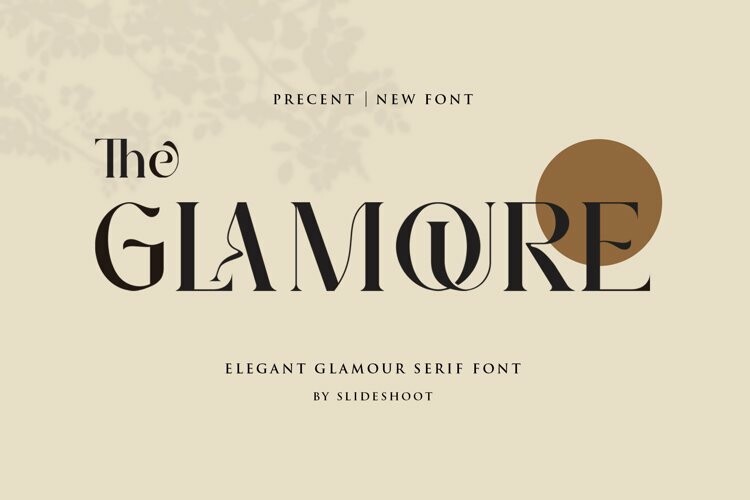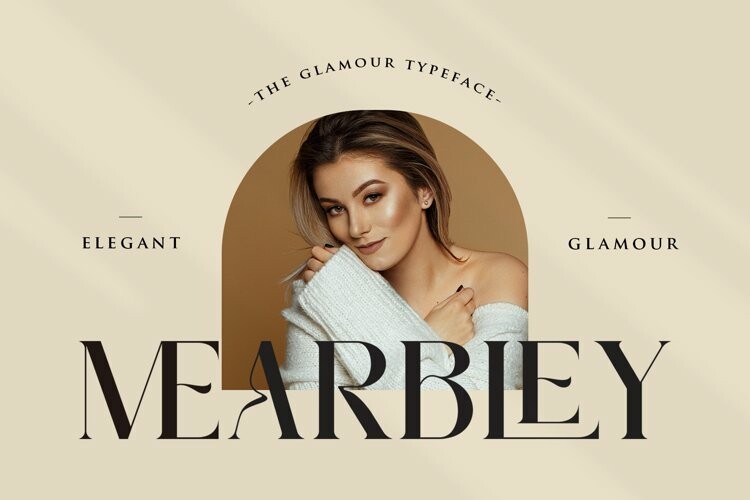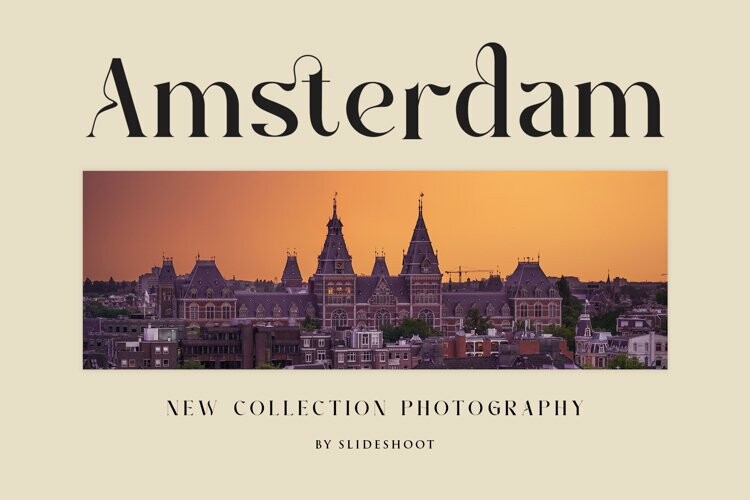
The Glamoure Serif Font
The Glamoure Serif Font is a balanced, smooth, elegant and stylish serif font. He has a beautiful character. It fits perfectly with invitation card designs, company logos, movie titles, movie names, business cards, book titles, brand names and various other designs. The Glamoure Serif is a subtle serif font that exudes sophistication and elegance. Its stylish alternations and ligatures make this font the perfect partner for any project.